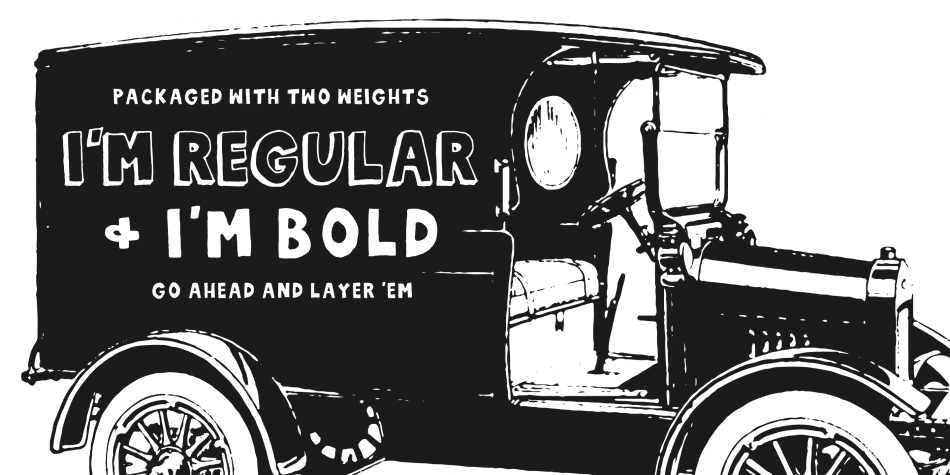
Ford City is a comic and hand drawn font family, blue collar font. Ford City comes in two weights with identical characters for layering and creating shadows. Both weights include uppercase characters and a variety of symbols.